Comma Type
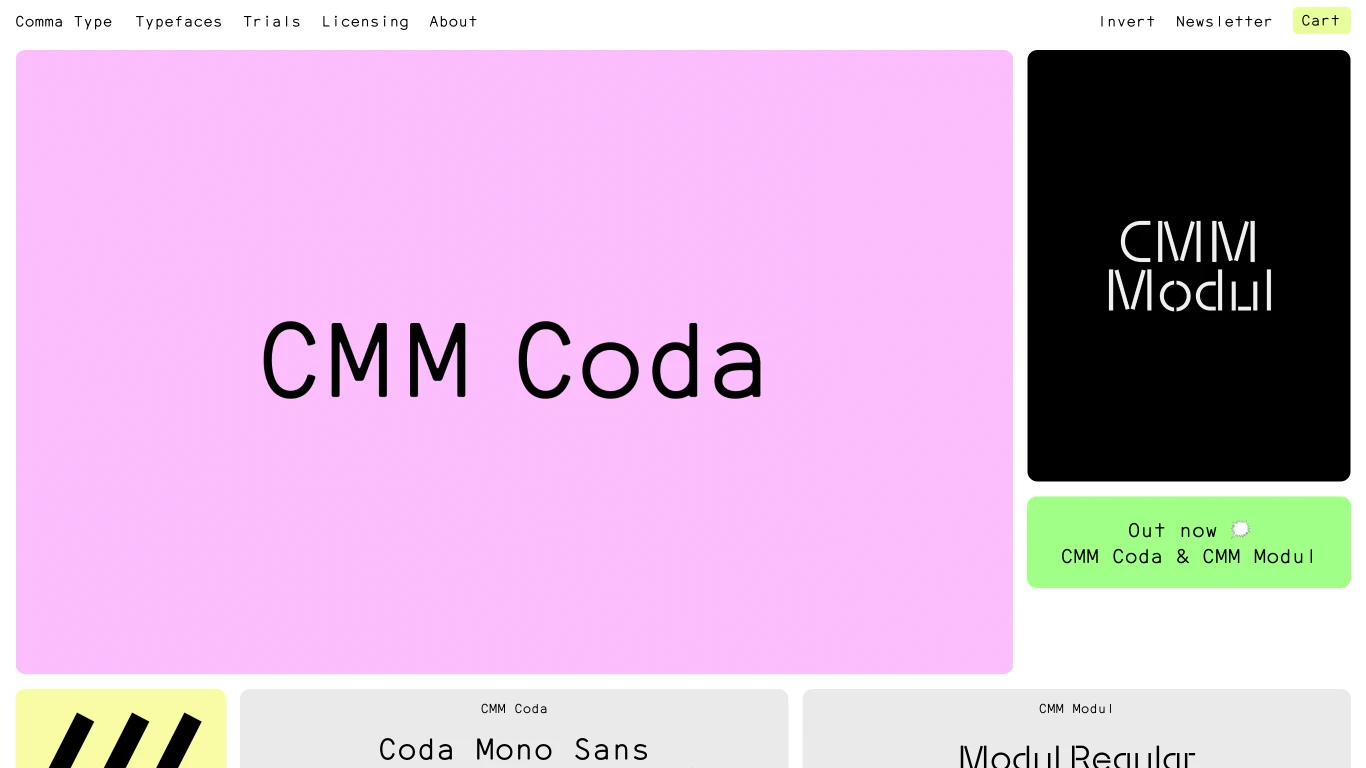
Germany
2024
Comma Type is an independent type design studio based in Berlin, Germany, founded in October 2024 by Anna Cairns. The foundry specializes in creating original typefaces that blend functional aesthetics with distinctive elegance. Notable releases include 'CMM Coda' and 'CMM Modul', each reflecting a unique structural approach. Comma Type follows a value-based licensing model, ensuring that typefaces are licensed and paid for by the client, aligning with the approach introduced by ABC Dinamo in 2020.